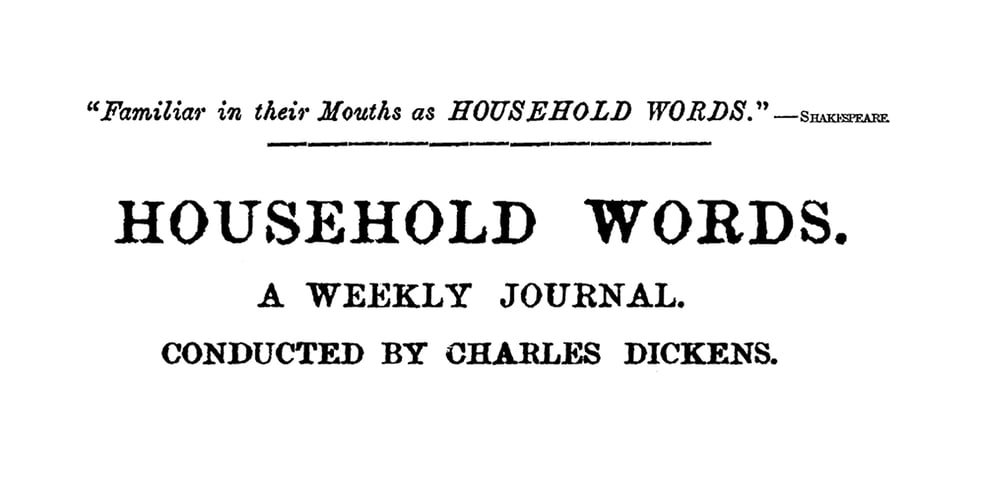
Household Words
Household Words font
Household Words Font Family was designed by Gary Stephens and published by Antiochus. Household Words contains 6 styles and family package options. This is the original printing-press typeface of Household Words (c. 1850 – 1859).Dickens first serialised “Hard Times,” in the journal.The typeface is heavy and elegant.Each character printed is different,– this mechanism produces the authentic feel. For example one “e” is different to another “e”. When typing, the letters appear to permutate slightly before becoming fixed.A pdf example of the style may be found here :https://www.behance.net/gallery/221615179/Household-Words